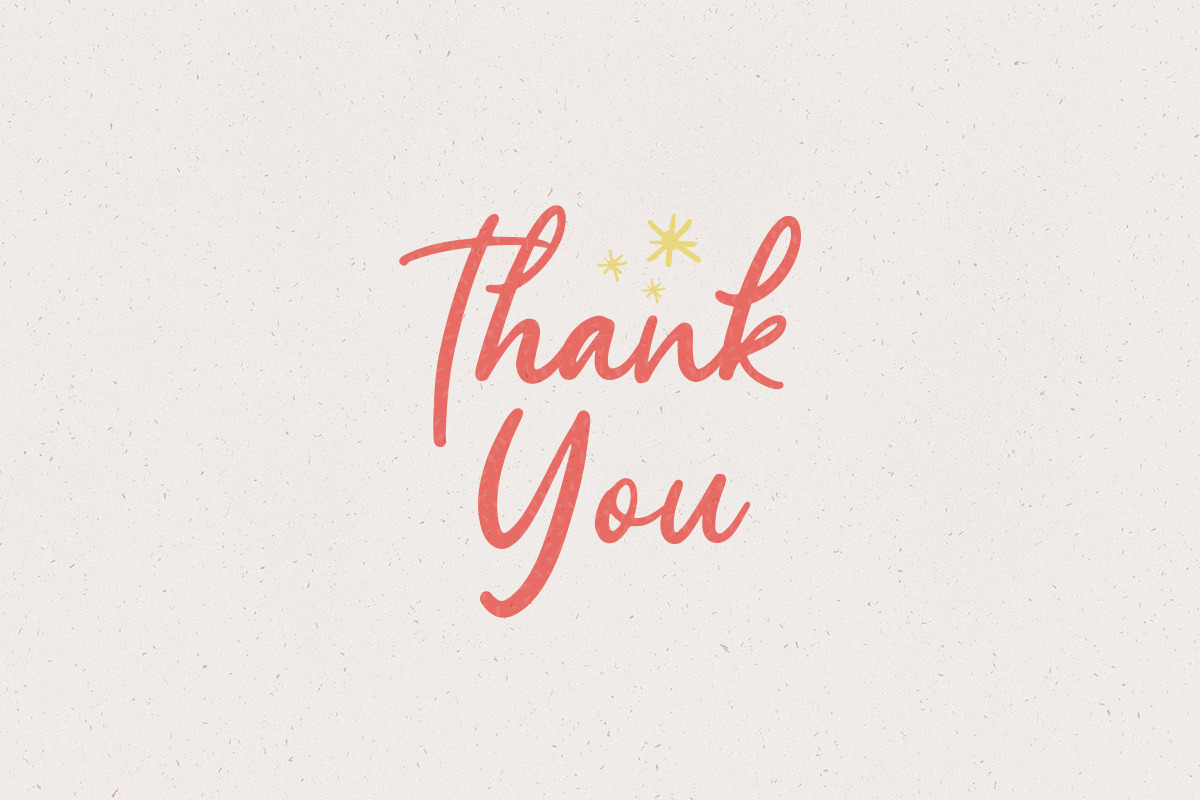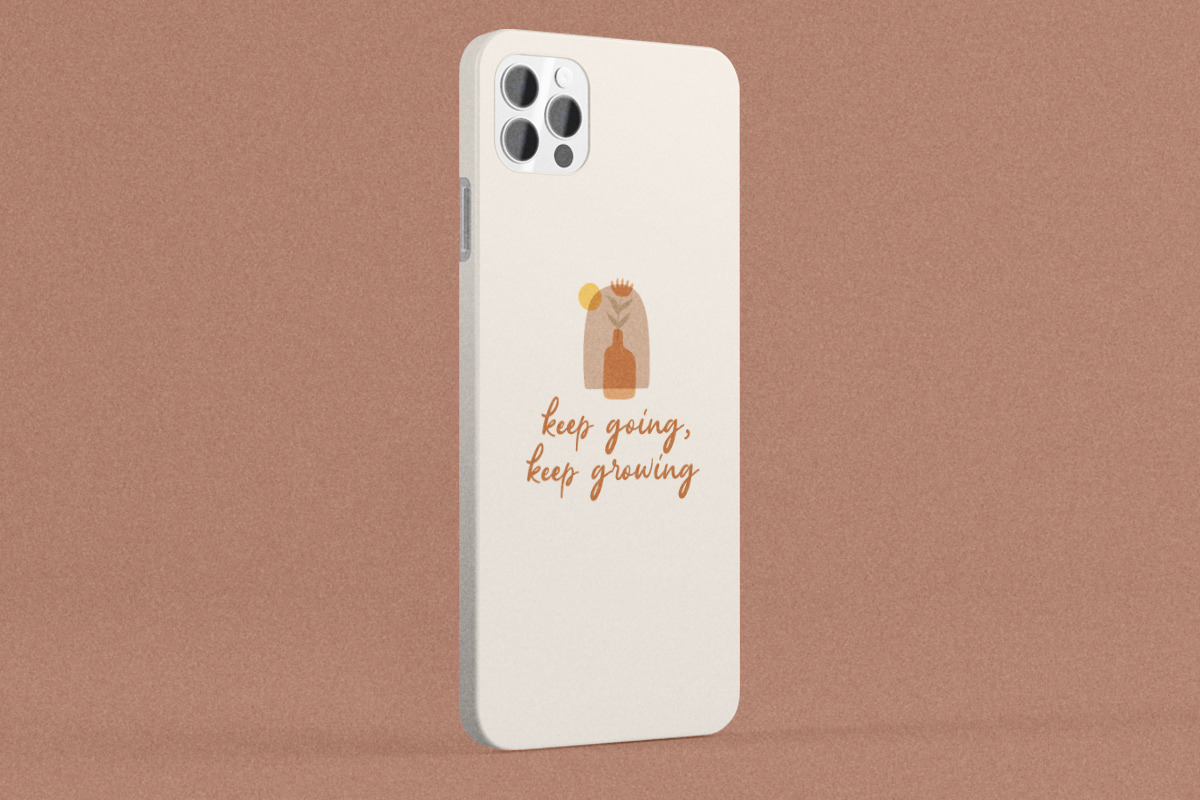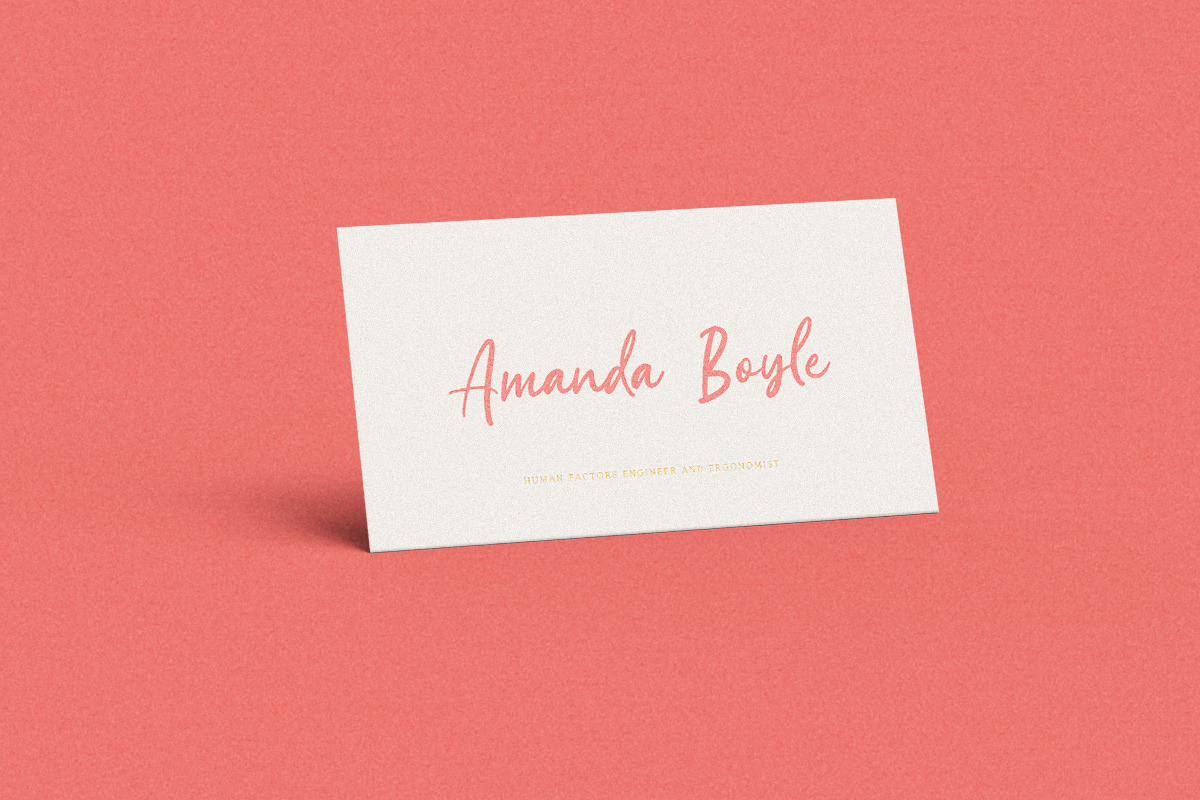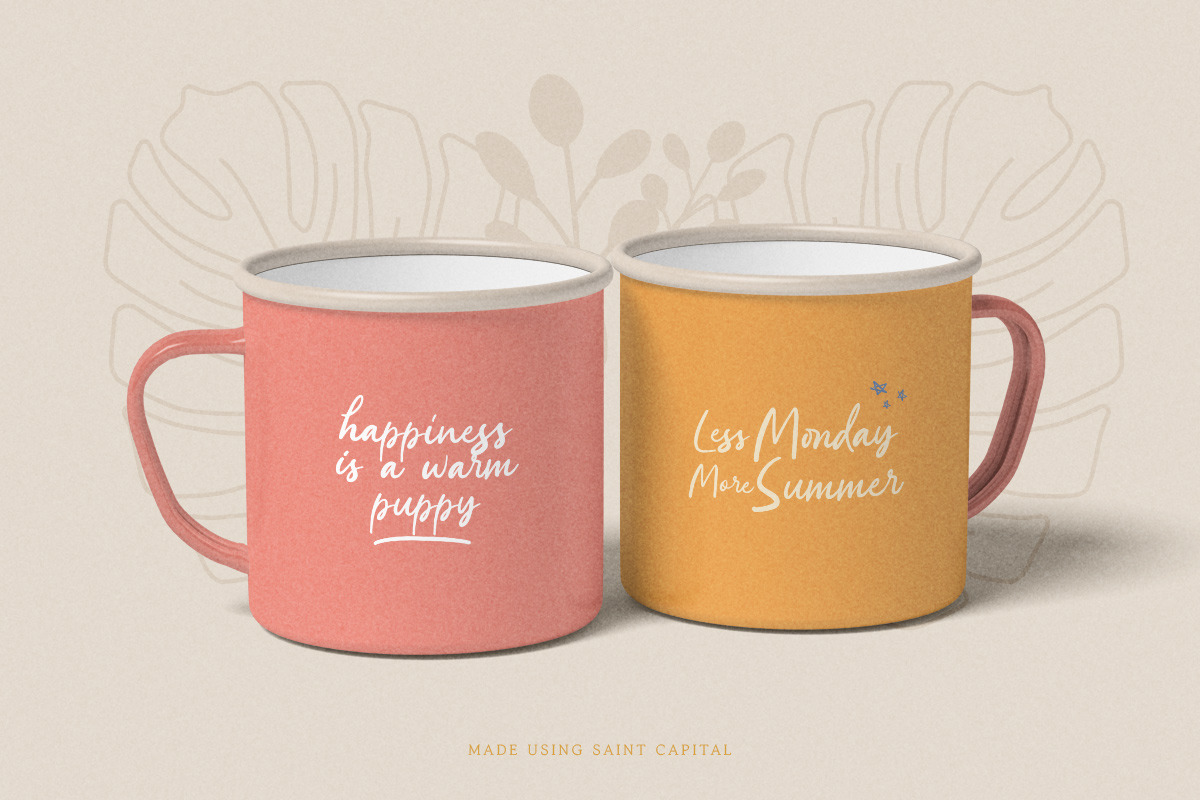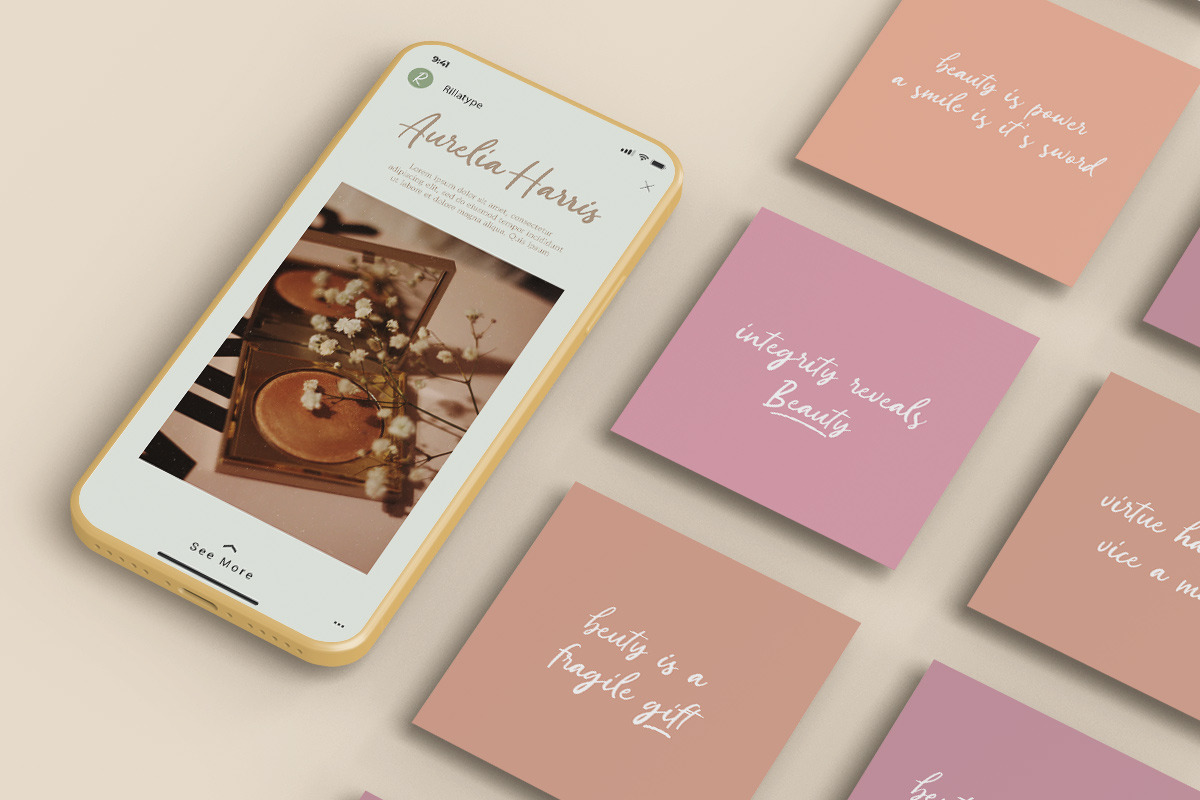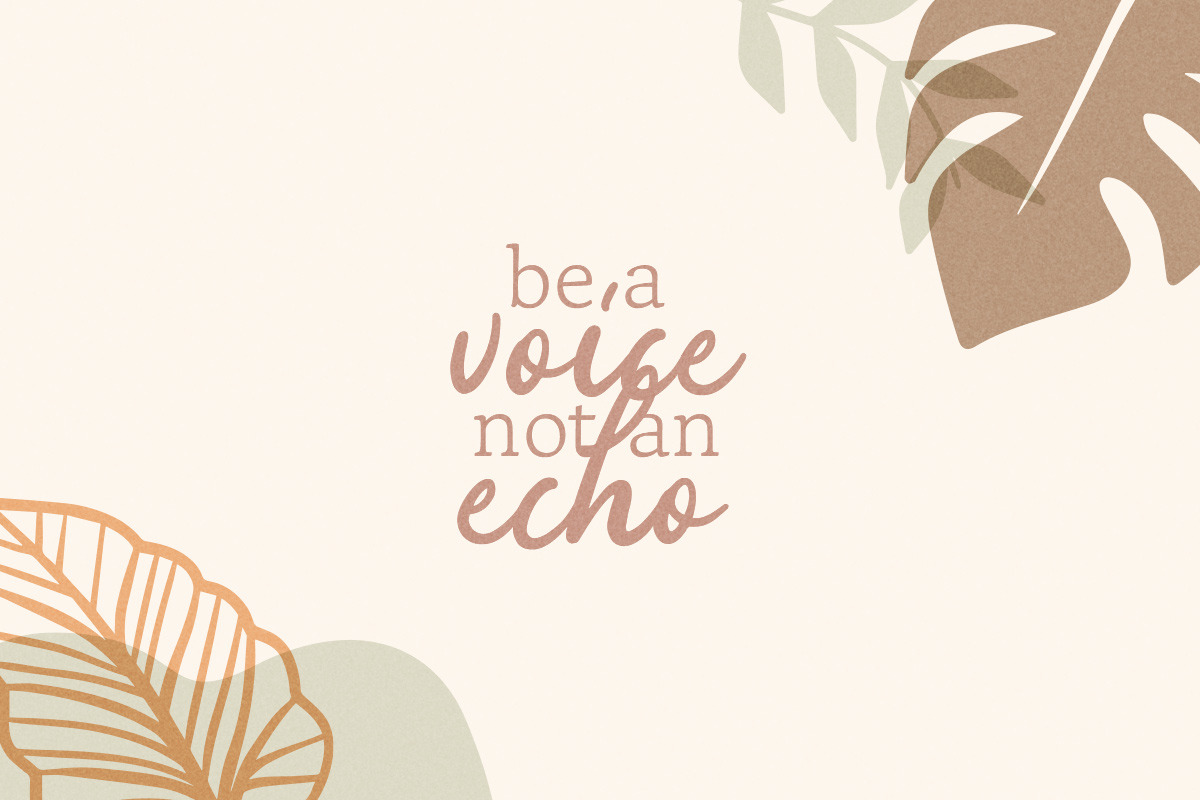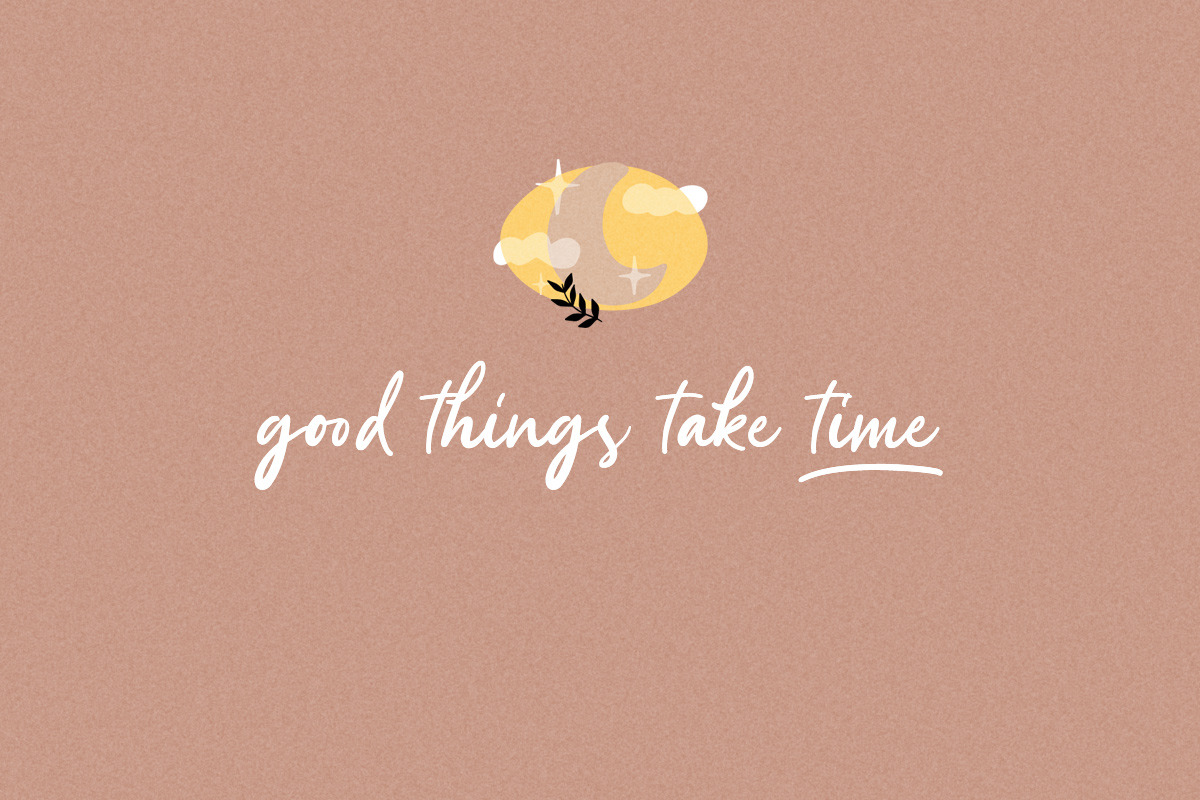
Saint Capital - Handwritten Script
Introducing, Saint Capital. a new handwritten script font. Saints Capital is a cute handwritten font with feminine touch to emphasize your design and bring more cute and feminine feel to your design. This font is perfect for branding, packaging, merchandise, printing, quotes, etc. Saint Capital also come with multilingual support and PUA encoded.